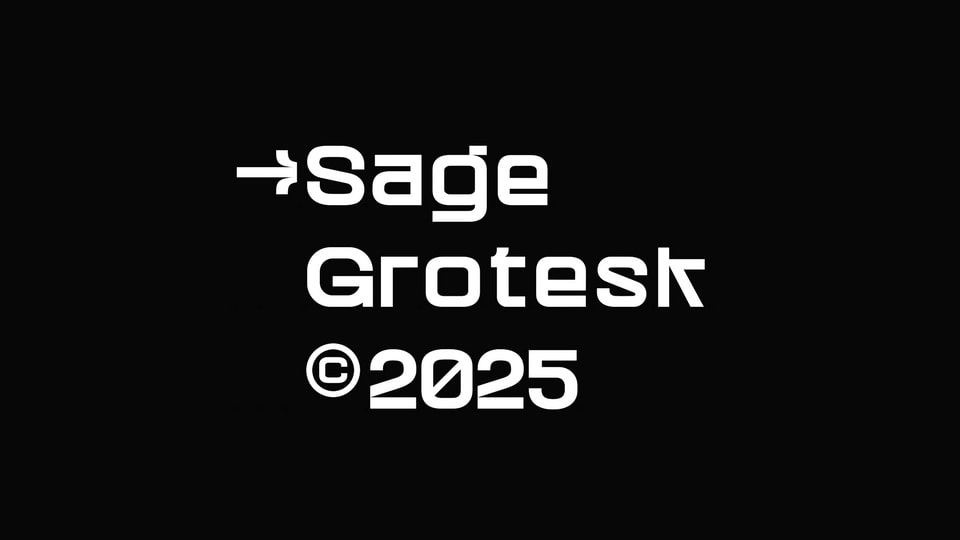
Download Sage Grotesk font, a sans serif typeface intended as a display but suitable for typesetting short texts. Thick, wide, simple glyphs – intentionally resembling the bold version, very well take on the role of a headline font.
Designer: Konrad “Koxu” Łukasiak